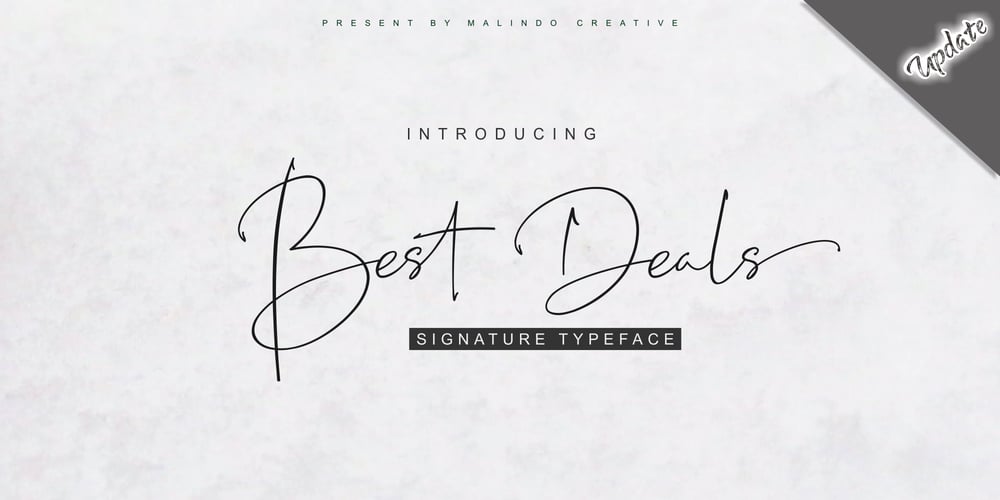
Best Deals Font Family was designed by Murtadha bin Sulaiman and published by Malindo Creative. Best Deals contains 3 styles and family package options. Best Deals | Signature Typeface, is a signature script with natural flow & style. This font has a natural looking ligature for the OpenType feature, making the font appear as close as possible to natural handwriting,Best Deals | Signature Typeface is perfect for all projects such as, logos & branding, invitations, stationery, wedding designs, social media posts, advertisements, product packaging, product designs, labels, photography, watermarks, special events or whatever.Best Deals | Signature Typeface Comes With 353 Glyphs and OpenType Features are also added to this font.Best Deals | Signature Typeface has given PUA encoded (fonts with special code).This font comes with language support:€Š‹ŚŤŽŹ‘’“”–—™›śťžźˇ˘¦§¨©Ş«ÍÎĎĐŃŇÓÔŐÖŘŮÚŰÜÝ®Ż±˛´·¸Ľ˝ľżŔÁÂĂÄĹĆÇČÉĘËĚĀŕáâăäĺćçčéęëěíîďđńňóôőö÷řůúűüý˙¢àèêùˆ˚ąş»šThe Features includes:Stylistic Alternates,Swashes,Ligatures,Stylistic Set.You can pick the alternate for all style.If you want other files that are not here, please let me know at malindocreative@gmail.com. I will be happy to help.Thanks For Support, Hopefully Useful.